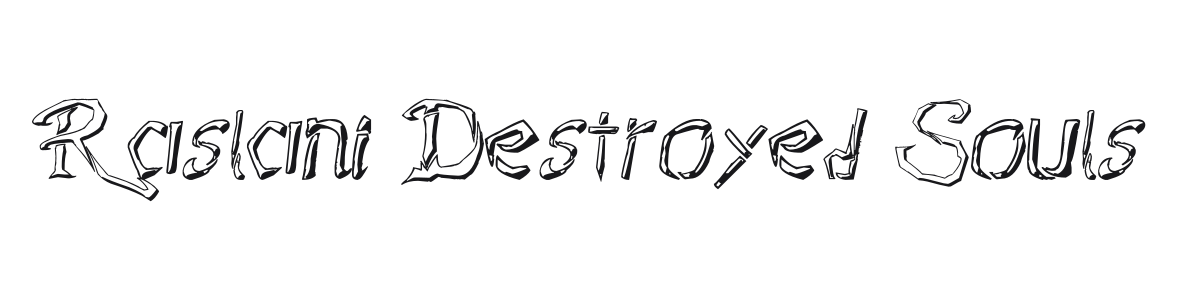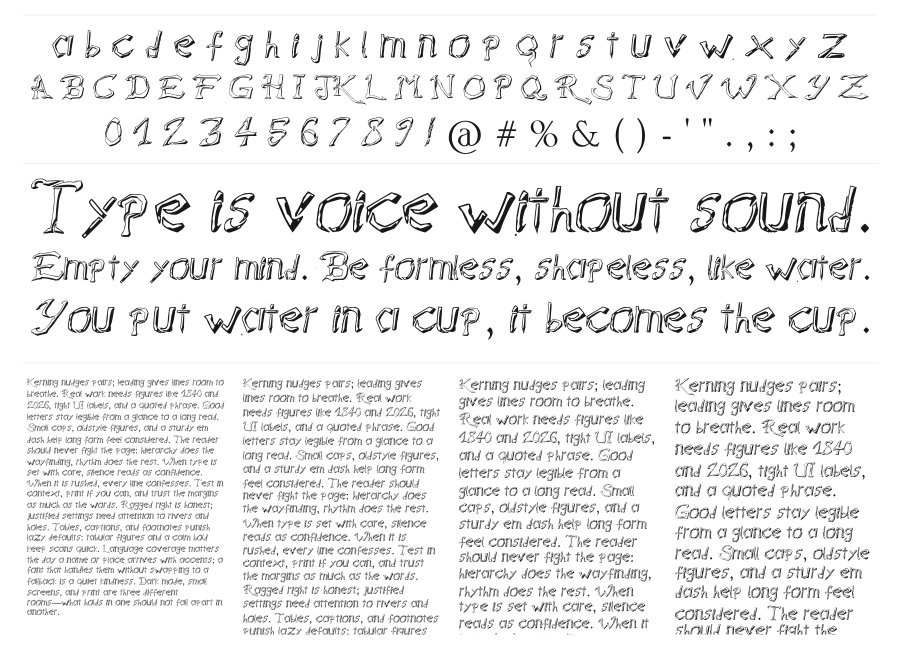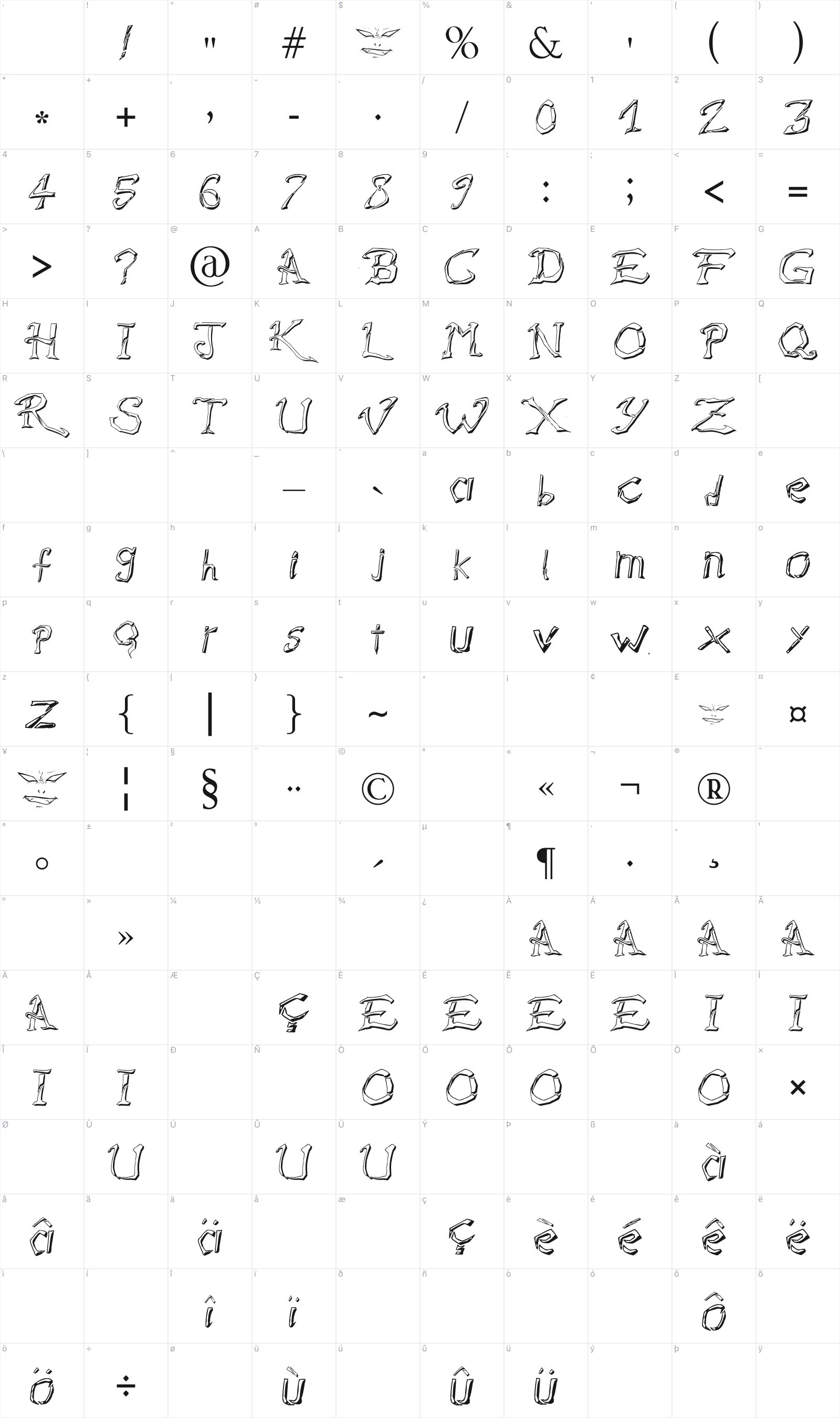
Raslani Destroyed Souls
Raslani Destroyed Souls is a scanned-handwriting display font with a deliberately wrecked, fractured look. Each character carries rough, broken edges and internal voids that make it feel like something torn from a wall or scraped off pavement. The italic lean adds momentum, pushing the grunge aesthetic into genuinely unsettling territory.